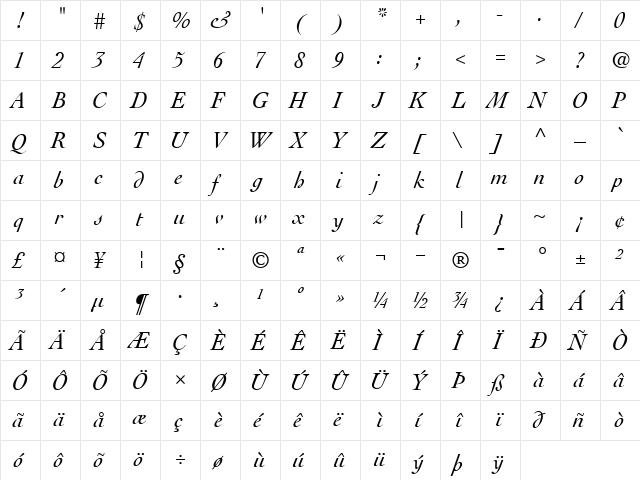
tsp tonight 1 Regular
Design Context for tsp tonight 1 Typeface
tsp tonight 1 is a composed and adaptable typeface that performs quietly and consistently across a wide range of design contexts.